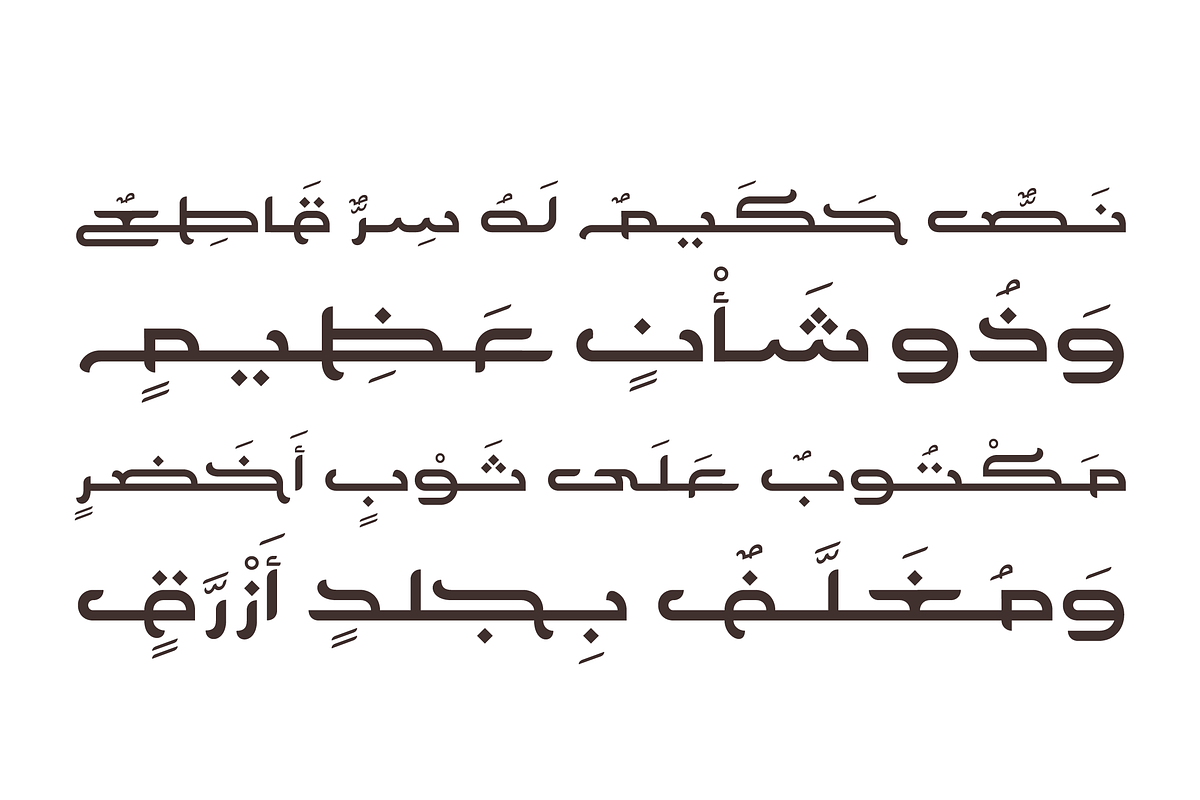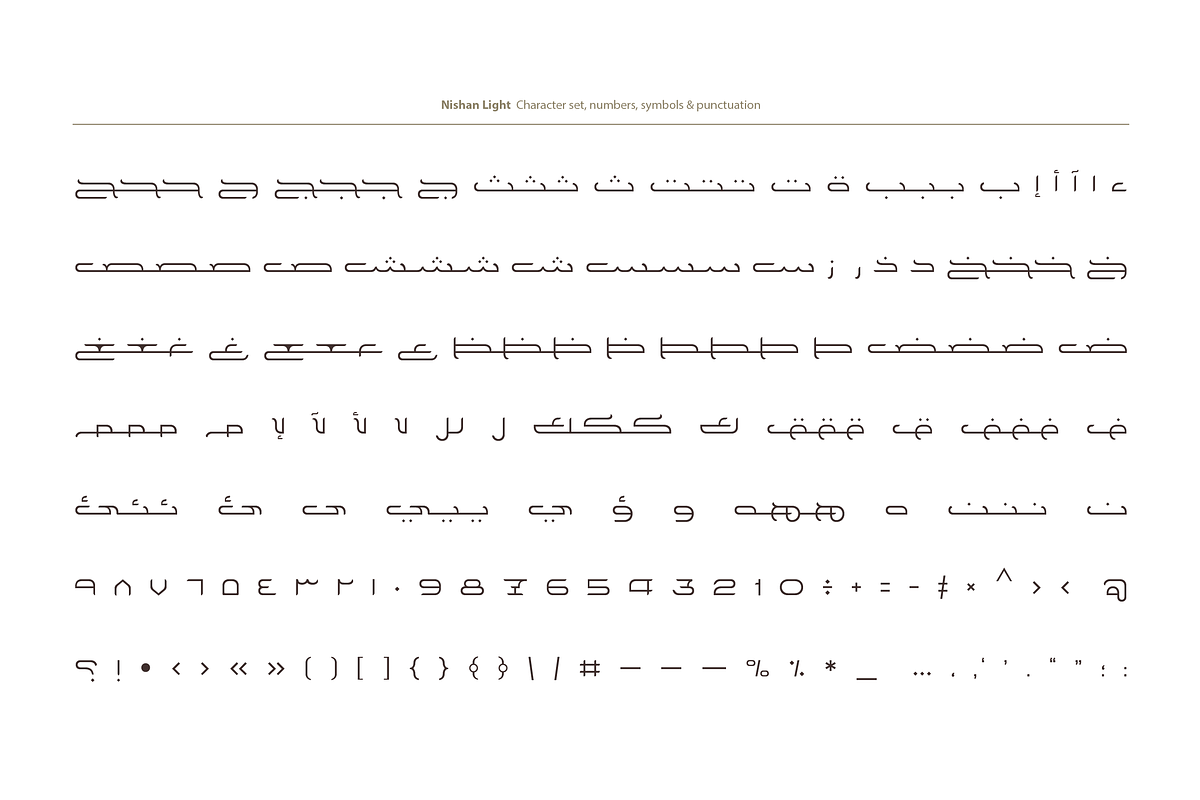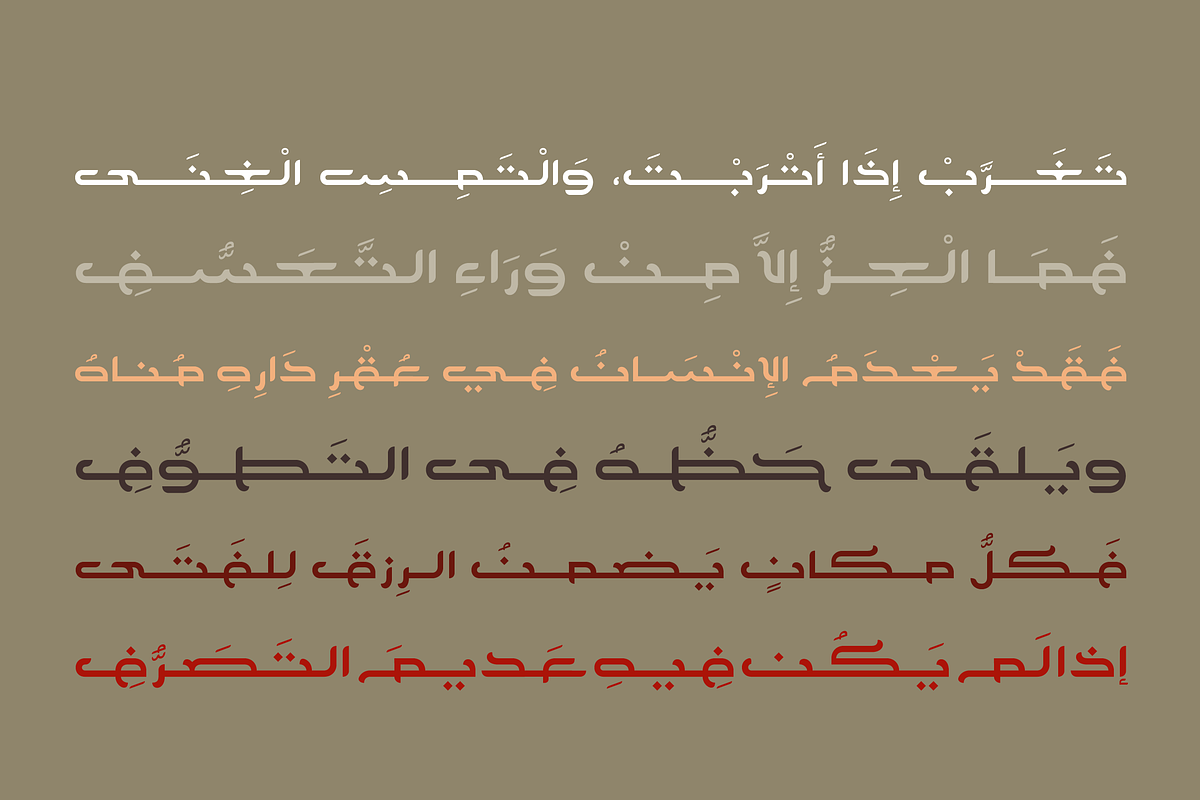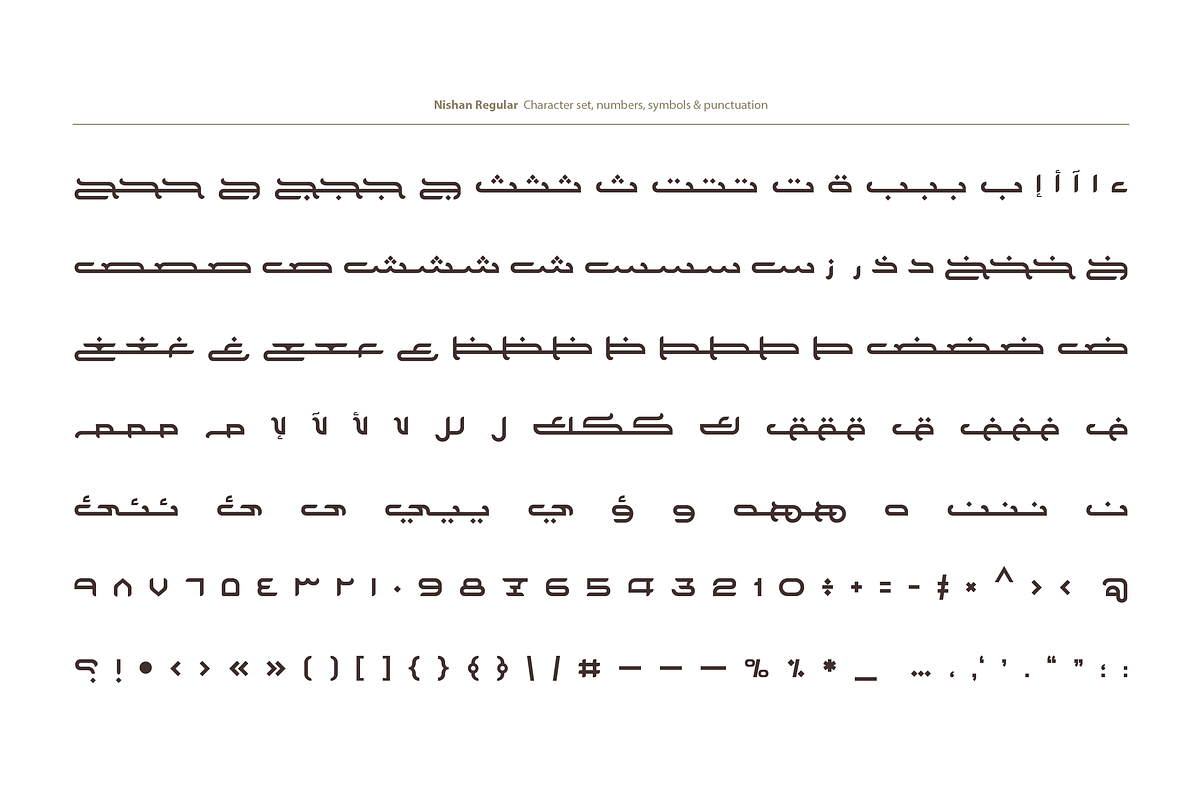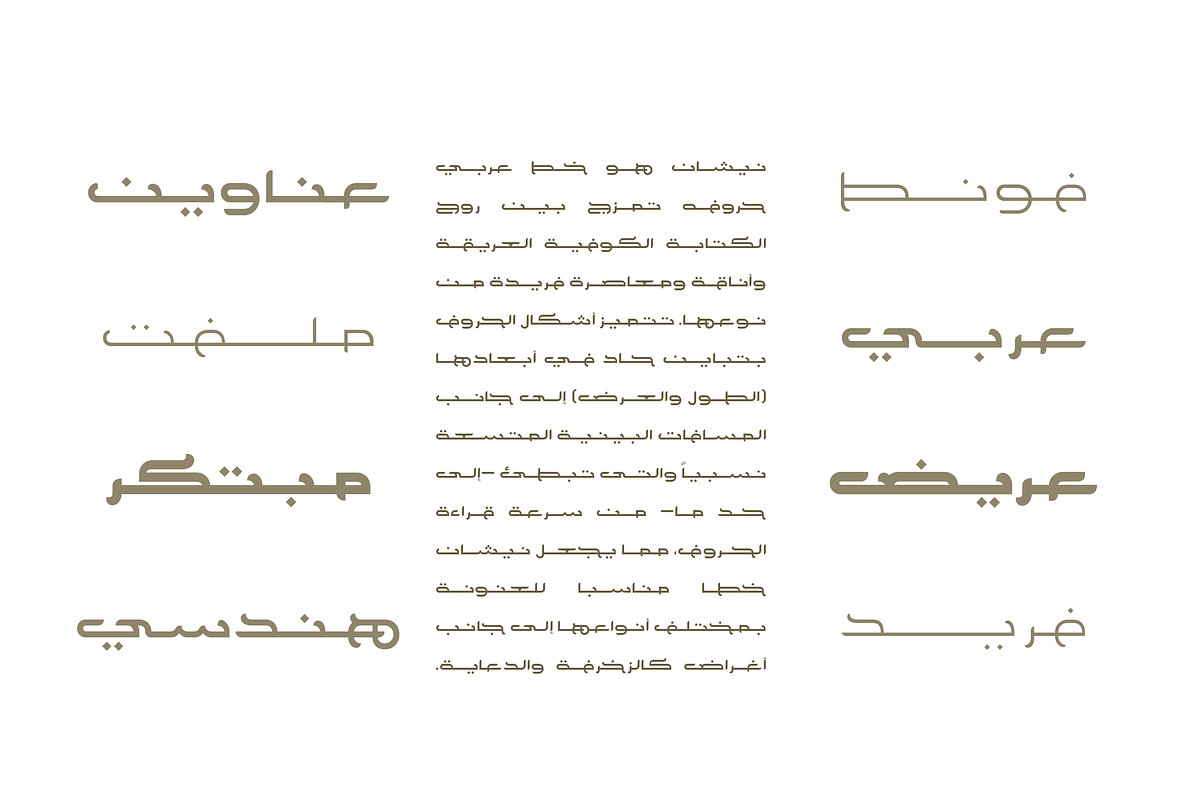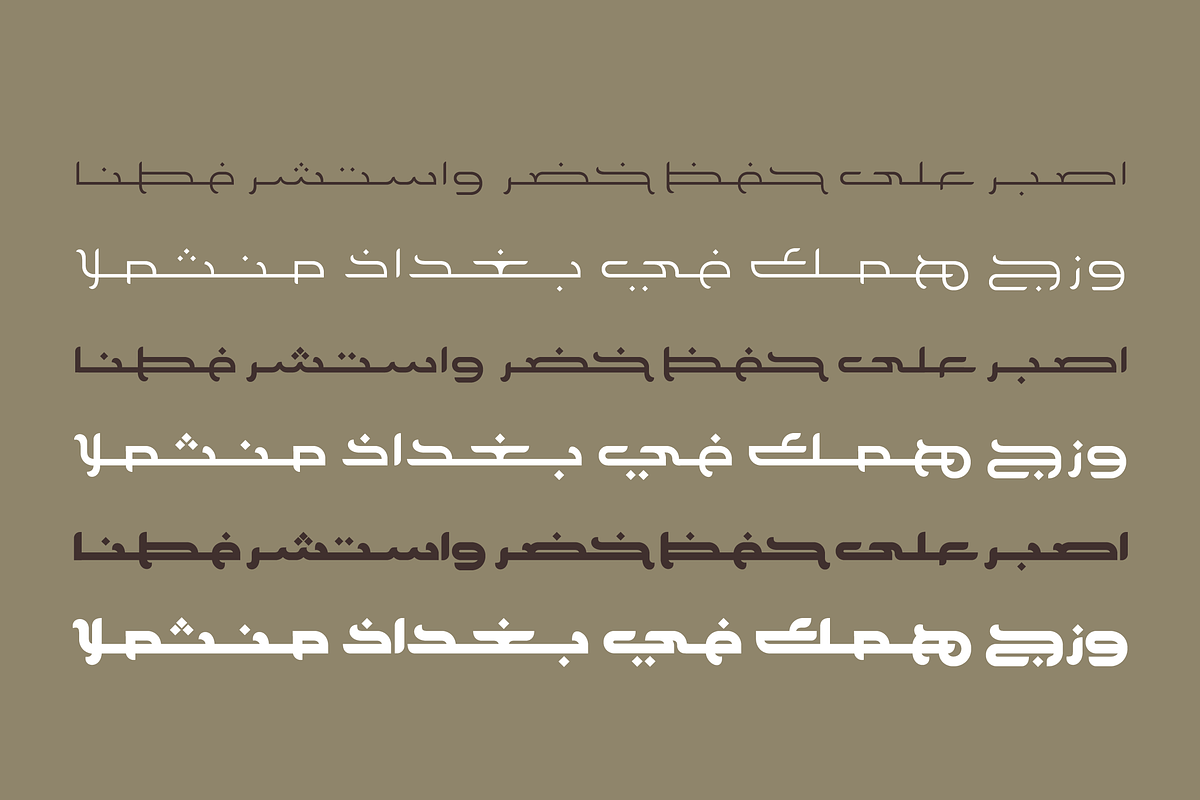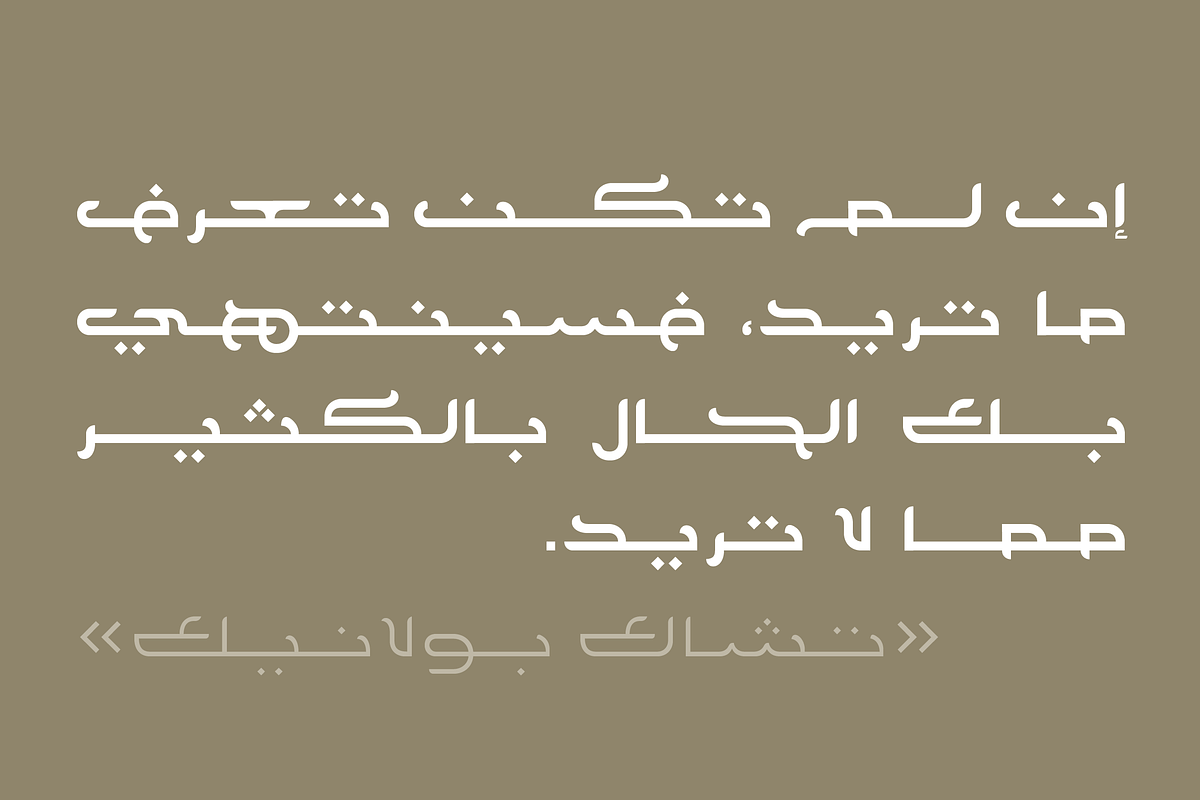
Nishan - Arabic Font | خط نيشان
Nishan - Arabic Font | خط نيشان by Mostafa El Abasiry is a font selected for branding, posters, packaging, typography.
- Nishan Light
- Nishan Regular
- Nishan Bold
Nishan - Arabic Font | خط نيشان by Mostafa El Abasiry fits naturally into Branding, posters, packaging, typography.